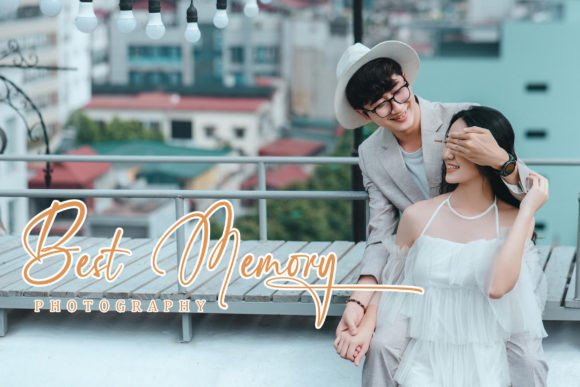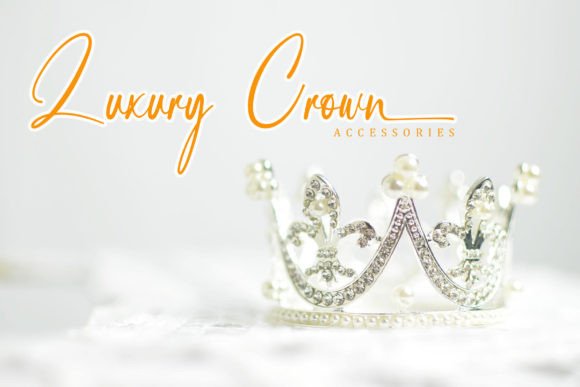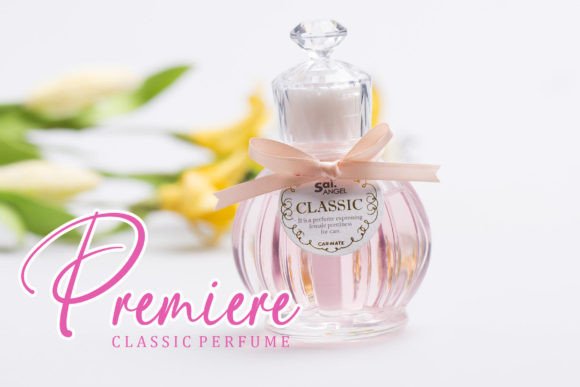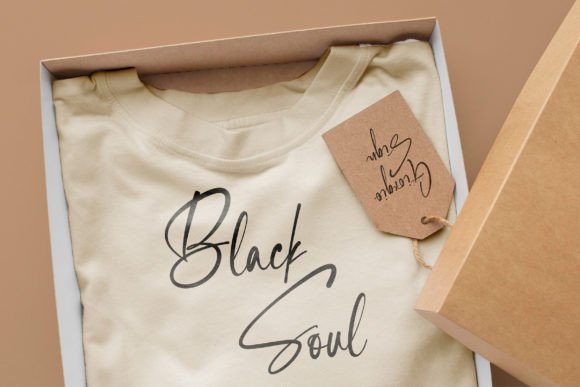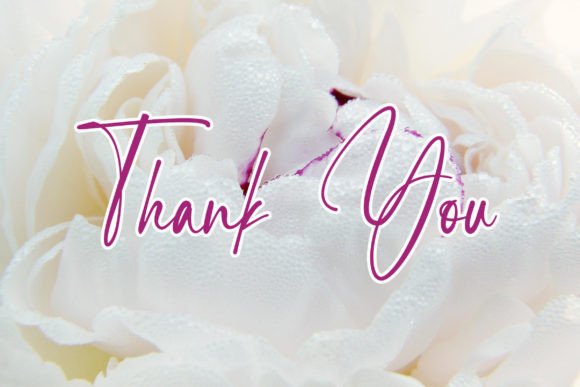
About Signatura Font
“Signatura” is an elegant signature font that exudes a delicate and classy aesthetic. With its refined and sophisticated look, this font is perfectly suited for a range of design projects, including t-shirts, invitations, magazines, greeting cards, and more.
The elegance of Signatura lies in its carefully crafted signature-style letterforms, bringing a touch of luxury to your text. Whether you’re working on digital graphics or print materials, Signatura is designed to elevate the overall aesthetics of your projects.
One notable feature of Signatura is its PUA encoding, ensuring that all glyphs and swashes are easily accessible. This enhances the user experience and provides designers with the flexibility to customize and embellish the font effortlessly. This feature allows you to add personalized touches, making your designs truly unique.
Imagine using Signatura for elegant invitations, where its delicate and classy style sets the tone for a sophisticated event. Picture it on t-shirts, adding a touch of refinement to fashion designs. Whether applied to magazines or greeting cards, Signatura is crafted to be a font that brings a sense of elegance and luxury to your creations.
In summary, Signatura is more than just a font; it’s a signature-style typeface that serves as a creative tool for a range of projects. Let it be the choice that adds a touch of sophistication and class to your designs, making them stand out with a timeless and refined charm.